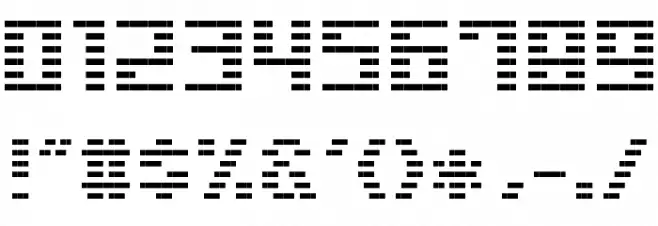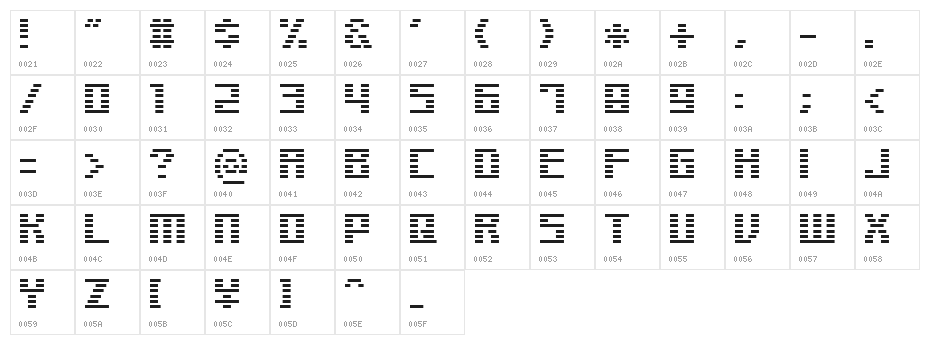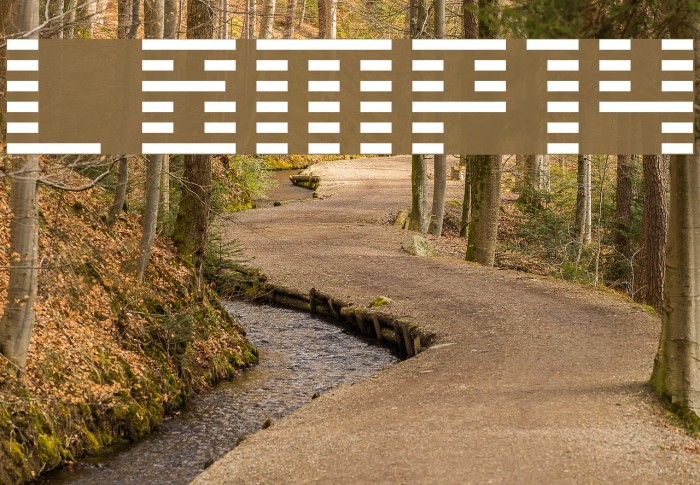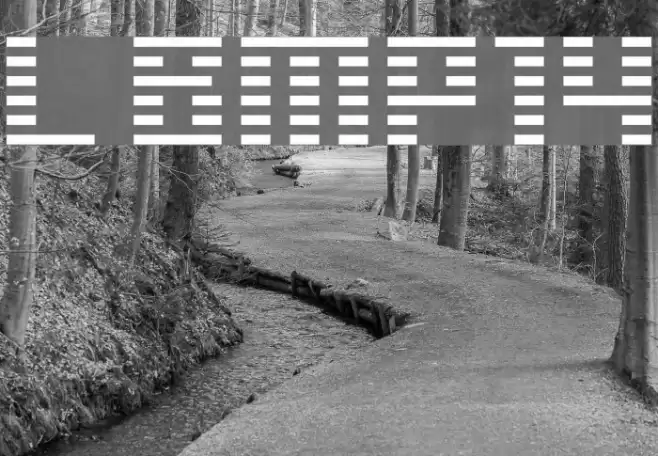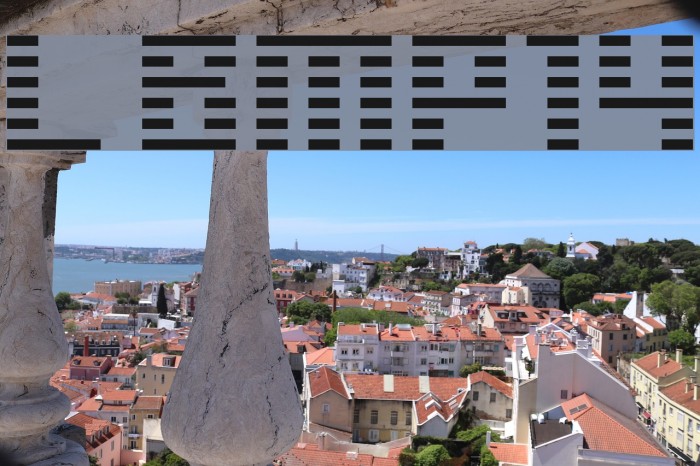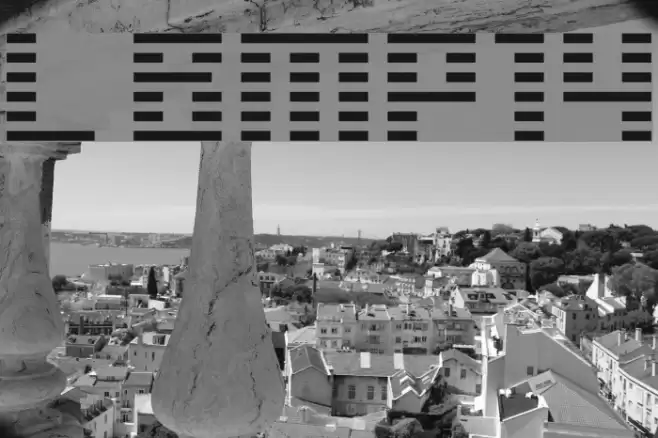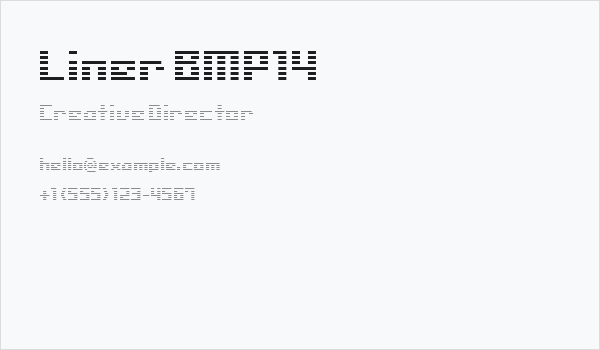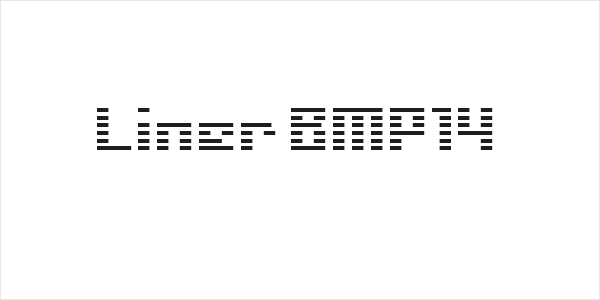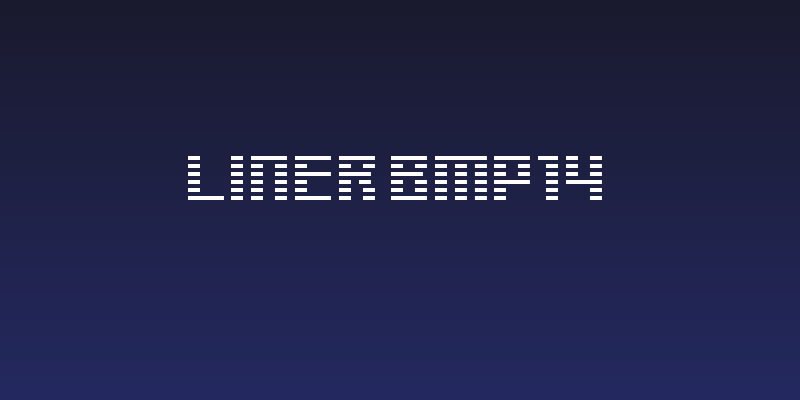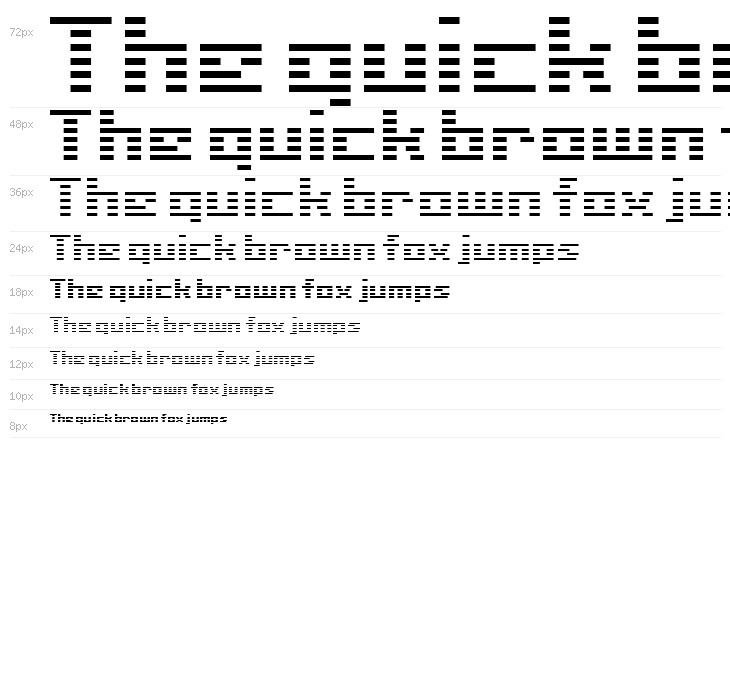
Liner BMP14 Font
Liner BMP14 Description
This font features a distinctive pixelated design, reminiscent of early digital displays and retro computer screens. Each character is constructed from a grid of small, uniform squares, creating a blocky and geometric appearance. The uppercase and lowercase letters maintain a consistent height, contributing to a cohesive and structured look. The numerals and special characters follow the same pixelated pattern, ensuring uniformity across all glyphs. This font evokes a sense of nostalgia and is ideal for projects that aim to capture a vintage digital aesthetic.
| Use Case | Logos, Headlines, Digital Art |
| Proposed Projects | Ideal for retro-themed designs, video game graphics, digital art projects, and any creative work that seeks to evoke a sense of nostalgia for early computing. |